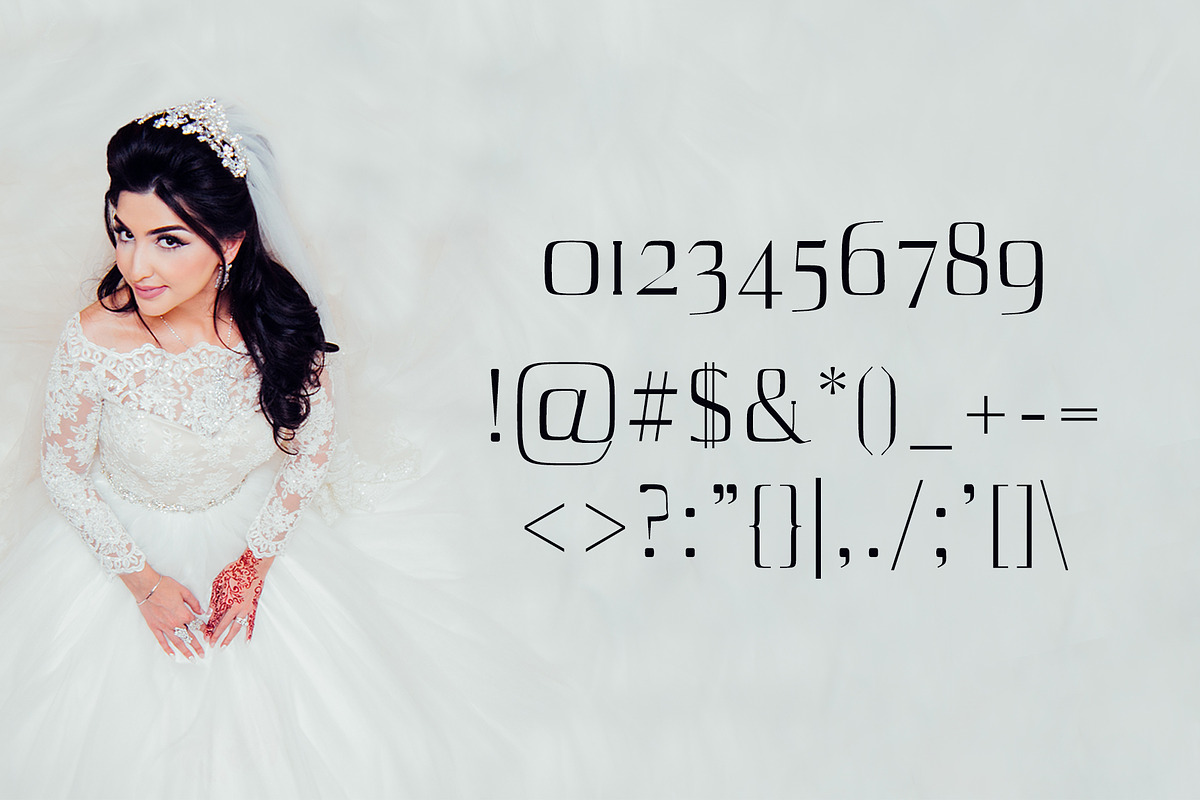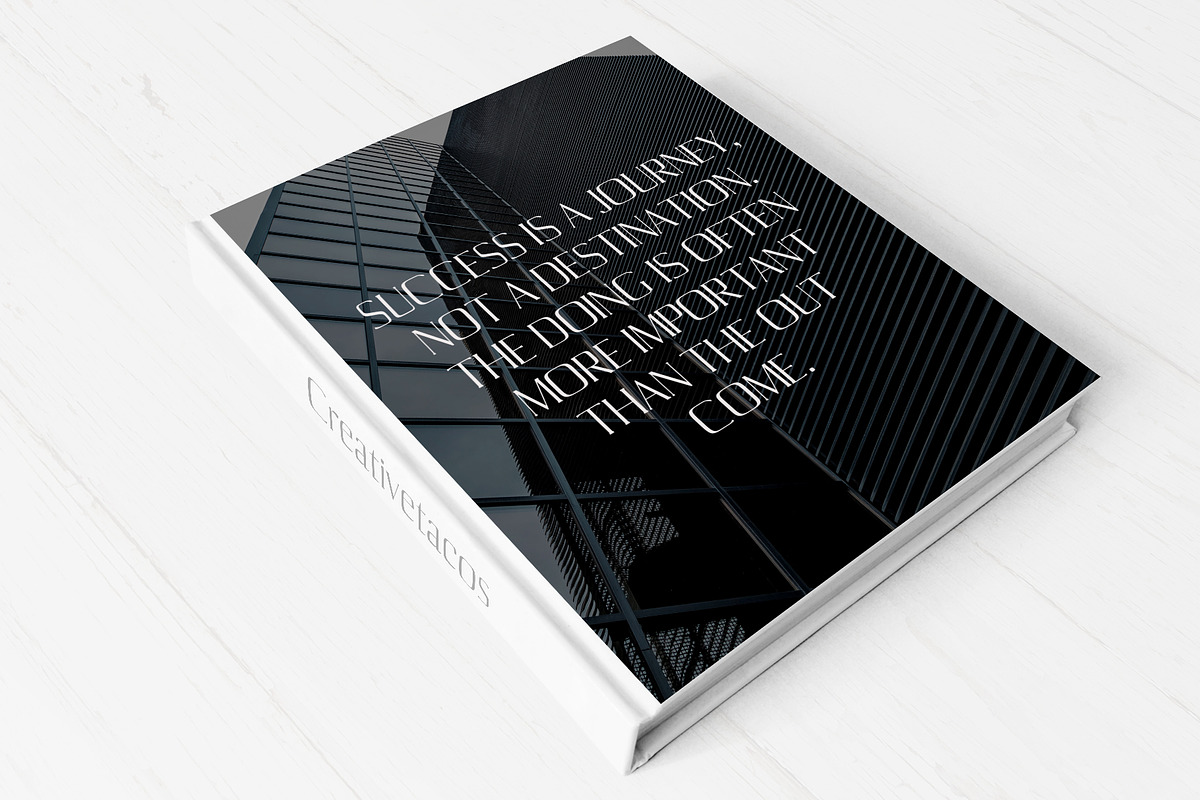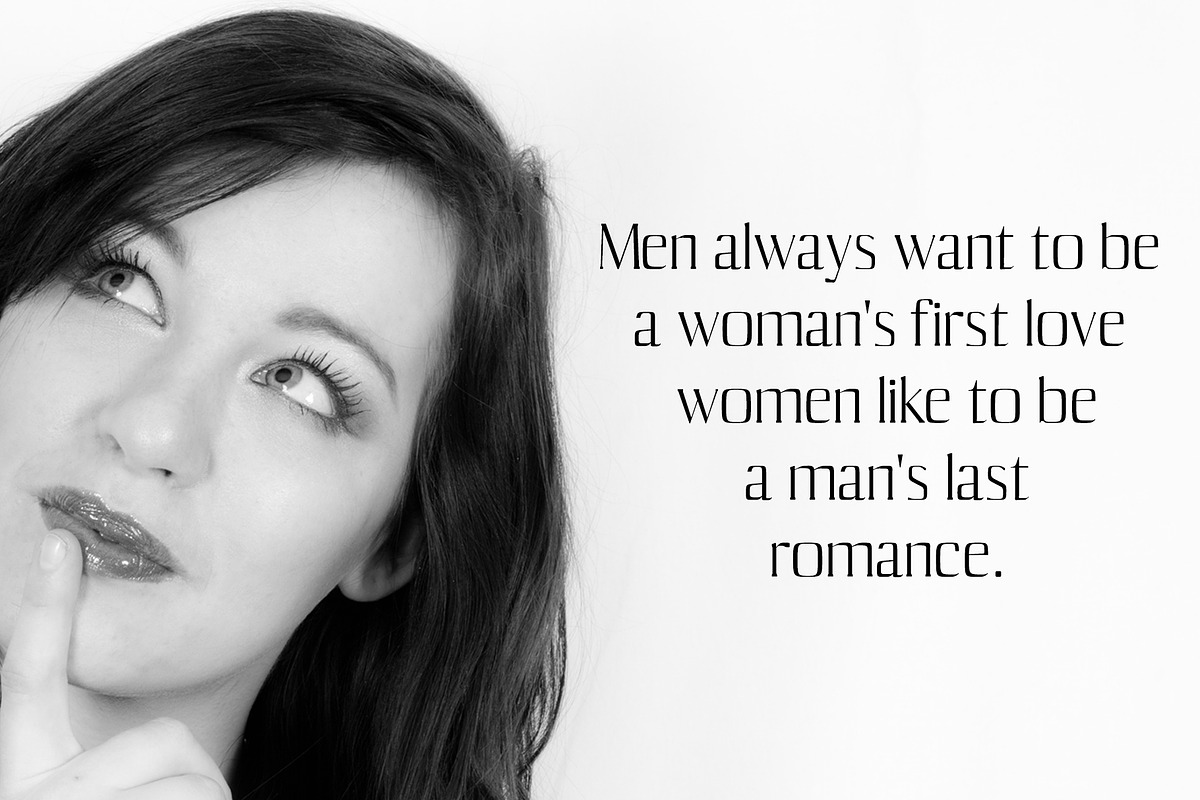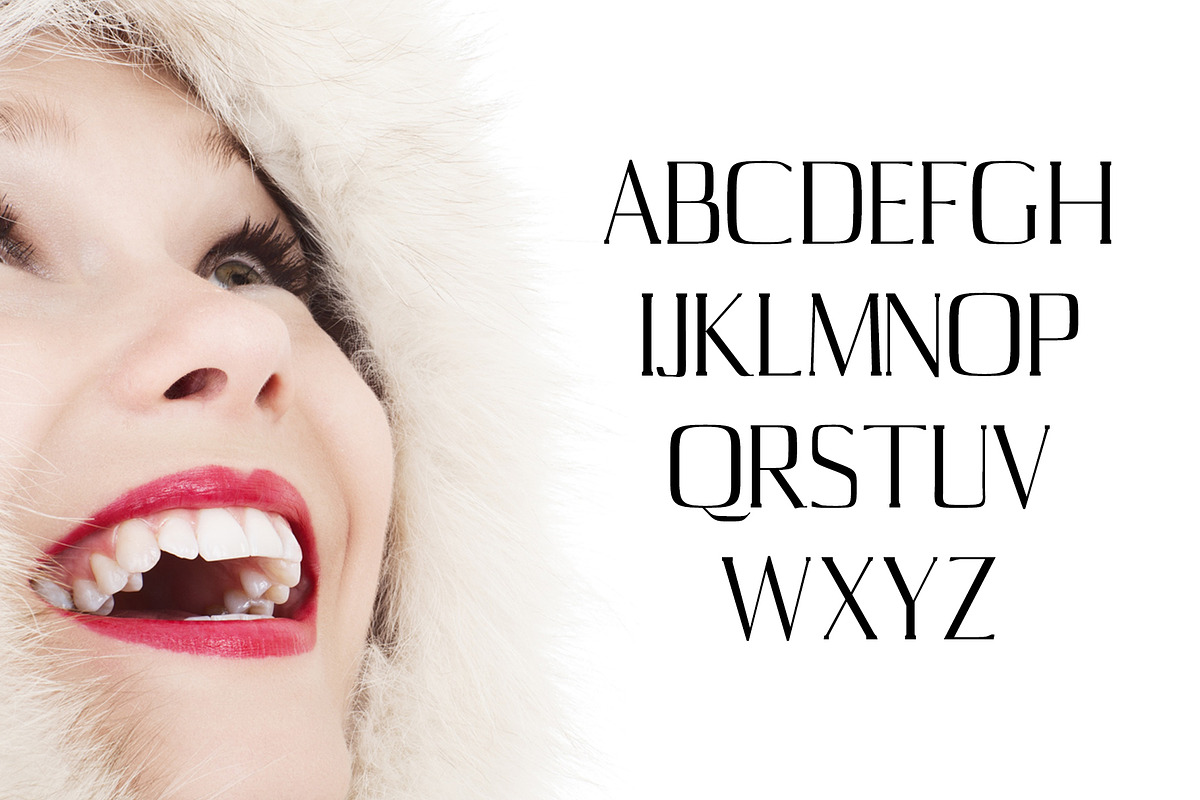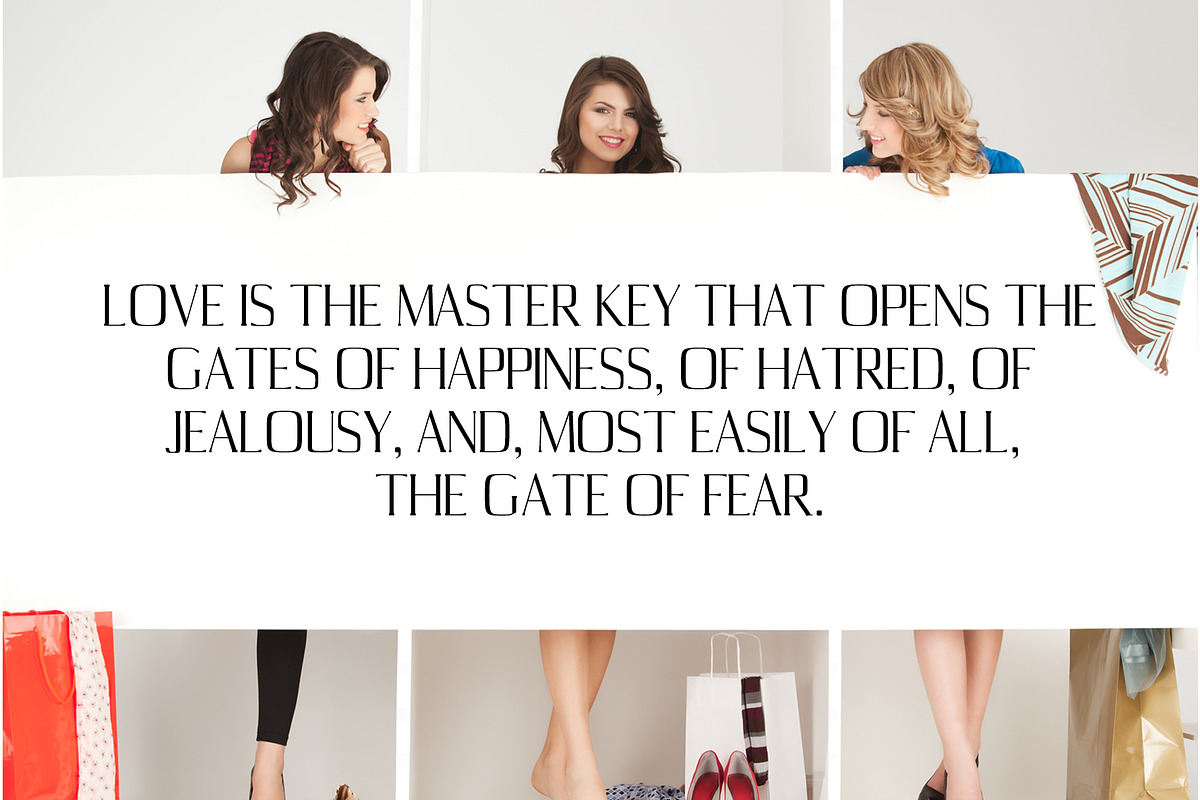
Aaliyah Serif Font Family Pack
Aaliyah Serif Font Family Pack by Creativetacos is a font selected for branding, posters, packaging, typography.
- Regular, Light, Thin, Black, Bold
- Aaliyah Thin
- Aaliyah Light
- Aaliyah Regular
- Aaliyah Bold
- Aaliyah Black
Why Aaliyah Serif Font Family Pack is worth a look
Aaliyah Serif Font Family Pack by Creativetacos fits naturally into Branding, posters, packaging, typography.